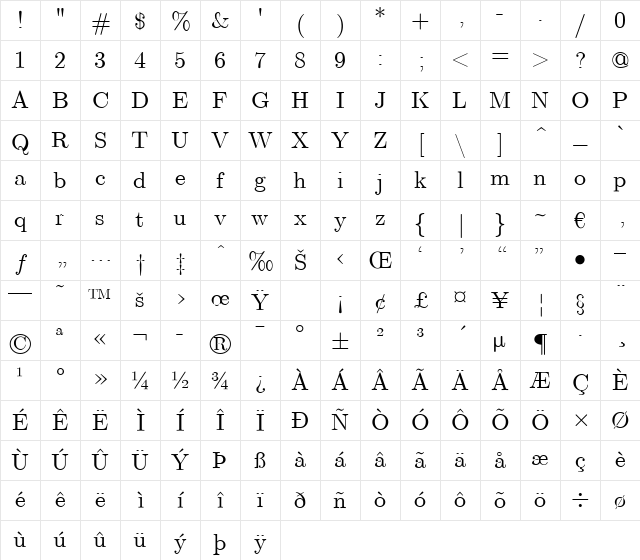
Euclid Regular Free Font
Euclid Regular
Foundry: Design Science, Inc
Designer: Donald Knuth, Richard Kinch, Paul Topping, Jim King
Design Context for Euclid
Euclid is a composed and adaptable typeface that performs quietly and consistently across a wide range of design contexts.